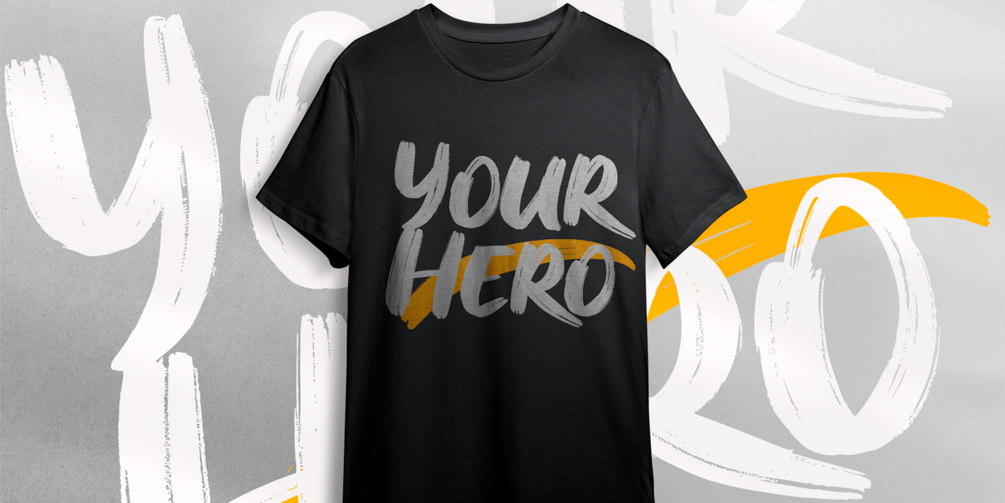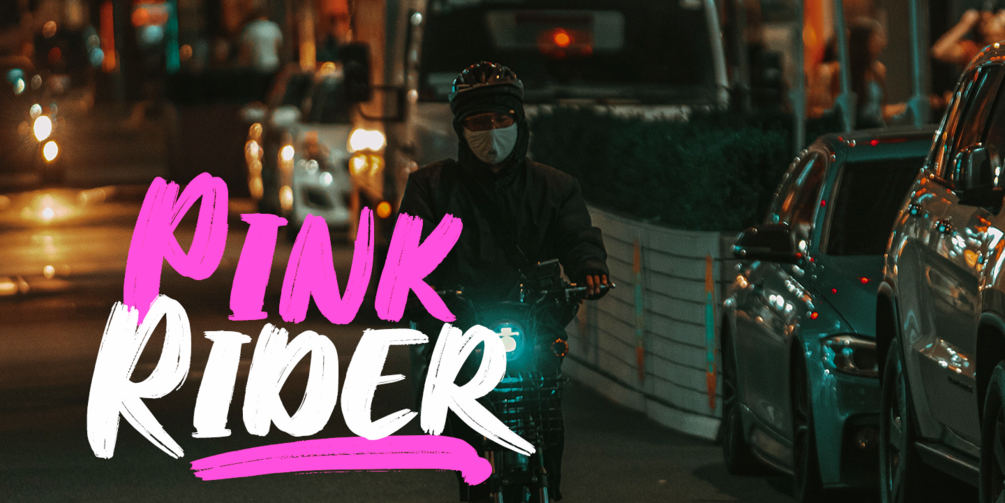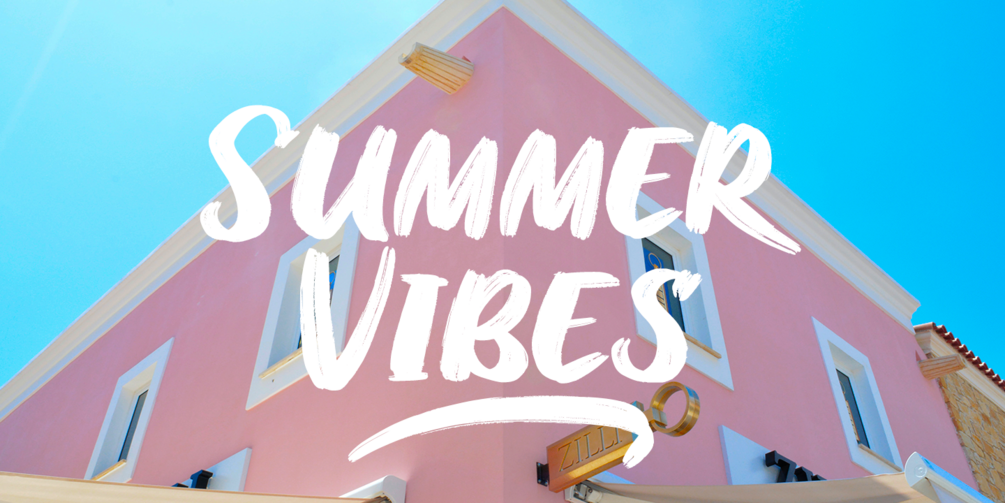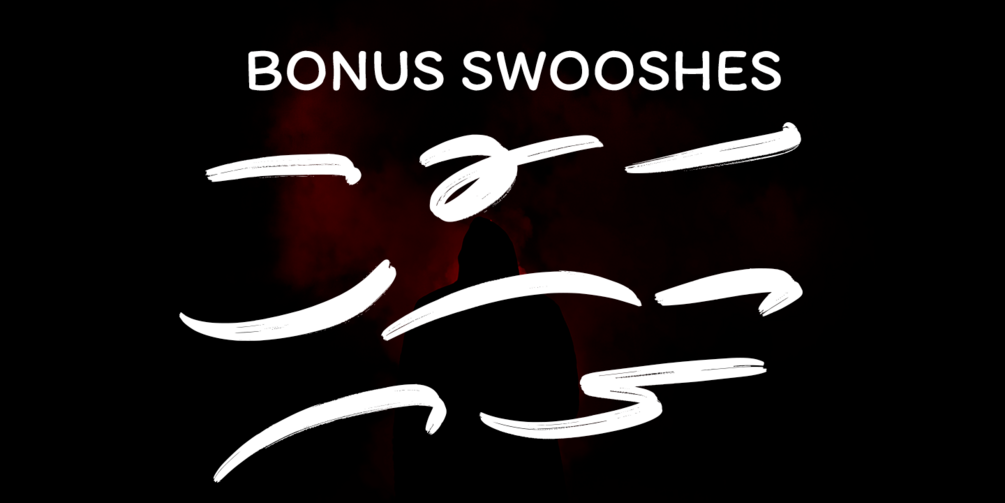
Brush Font | Bomber Brush
Looking for a font that blends quirky charm with readability?
Bomber Brush is a quirky, brush-style font that brings casual elegance and undeniable personality to any project.
With its bold brush strokes and effortless flow, Bomber Brush is perfect for a wide range of applications—whether it's making a statement in a headline or standing out on busy backgrounds. Its readability, combined with its unique style, makes it incredibly versatile for everything from logos and posters to web designs, branding, and more.
✨ Quirky, casual charm that’s both readable and striking
✨ Perfect for headlines, posters, logos, and creative designs
✨ Multilingual support for global use
🎨 Stand out with Bomber Brush—where personality and readability collide.